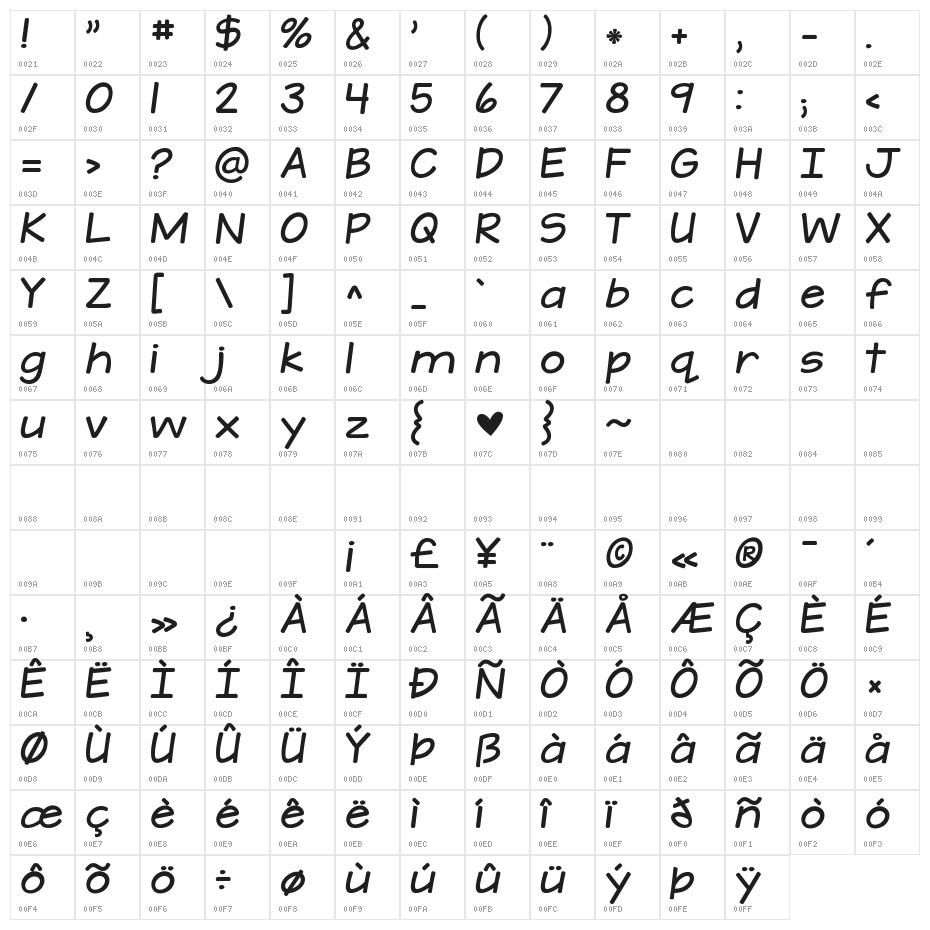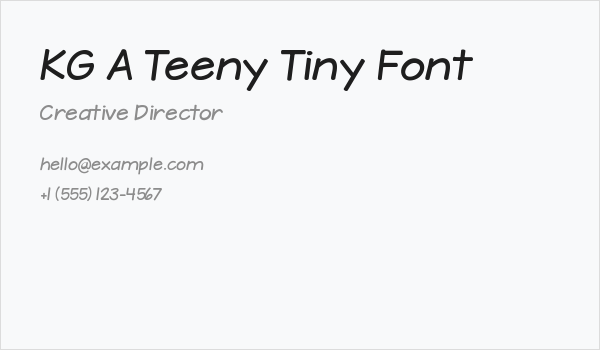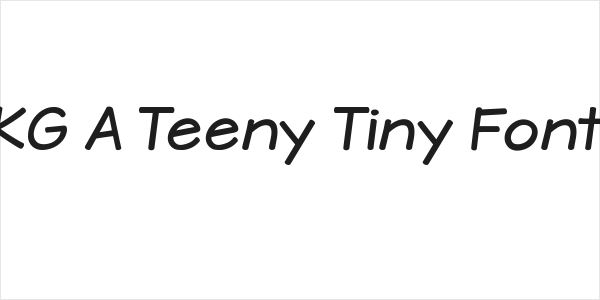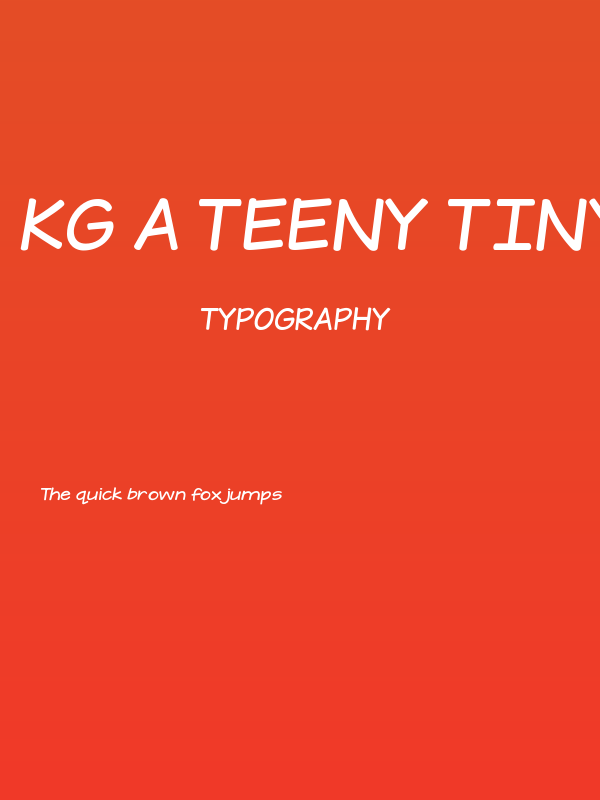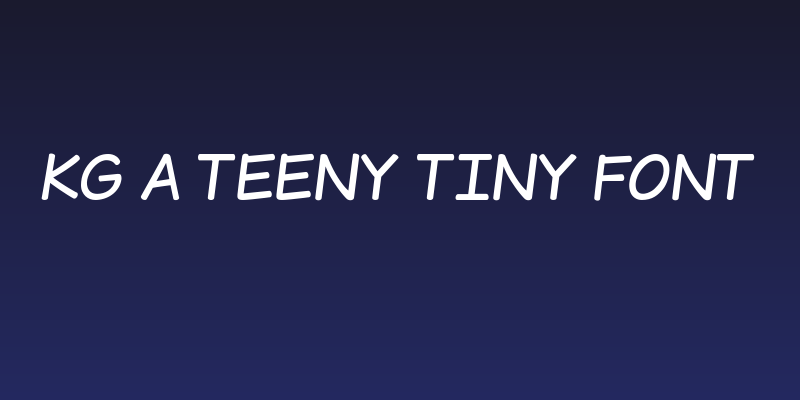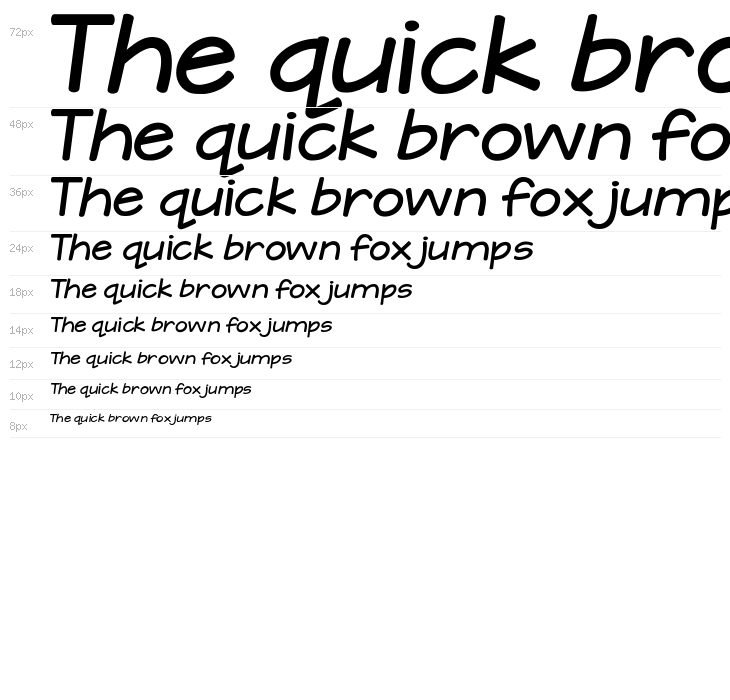
KG A Teeny Tiny Font Font
KG A Teeny Tiny Font Description
This playful and whimsical font features a handwritten style with a casual, friendly appearance. The letters are slightly slanted, giving a dynamic and informal look. The strokes are smooth and rounded, contributing to its approachable and easy-going feel. It maintains a consistent weight throughout, ensuring readability while retaining its unique character. The numbers and special characters are crafted with the same playful touch, making it versatile for various creative applications. Its informal style makes it suitable for projects that require a personal or fun touch.
| Proposed Projects | Ideal for children's books, greeting cards, playful branding, and informal invitations. |